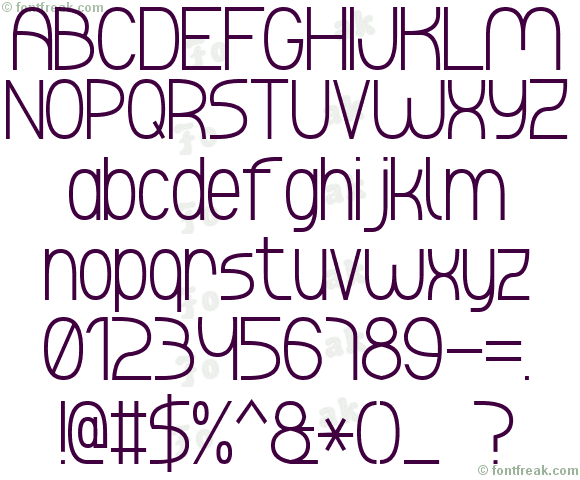
ABRICOS 7
About ABRICOS 7
The ABRICOS 7 font by Style-7 is a striking display typeface that captures attention with its unique flair. This font falls into the decorative category, making it a fantastic choice for projects that require a bold and artistic touch. The visual characteristics of ABRICOS 7 include a medium stroke weight with a moderate contrast, providing a balanced appearance that is both readable and visually appealing. Its letterforms are well-spaced, allowing for easy legibility while maintaining an artistic vibe. The font showcases distinctive decorative elements, which add a whimsical and contemporary feel.
ABRICOS 7 is an ideal choice for a range of creative applications. It works exceptionally well for wedding invitations, where its decorative style can enhance the romantic theme. Additionally, it can elevate movie posters, adding a striking visual component that captures the essence of the film. Restaurant menus can also benefit from this font, lending a modern touch to the culinary experience. Furthermore, it is well-suited for social media graphics and branding materials, making it a versatile option for content creators and small business owners.
The target audience for ABRICOS 7 includes graphic designers looking for unique typefaces to enhance their projects, as well as small business owners seeking to create eye-catching marketing materials. Content creators will appreciate the font's ability to stand out in a crowded digital space.